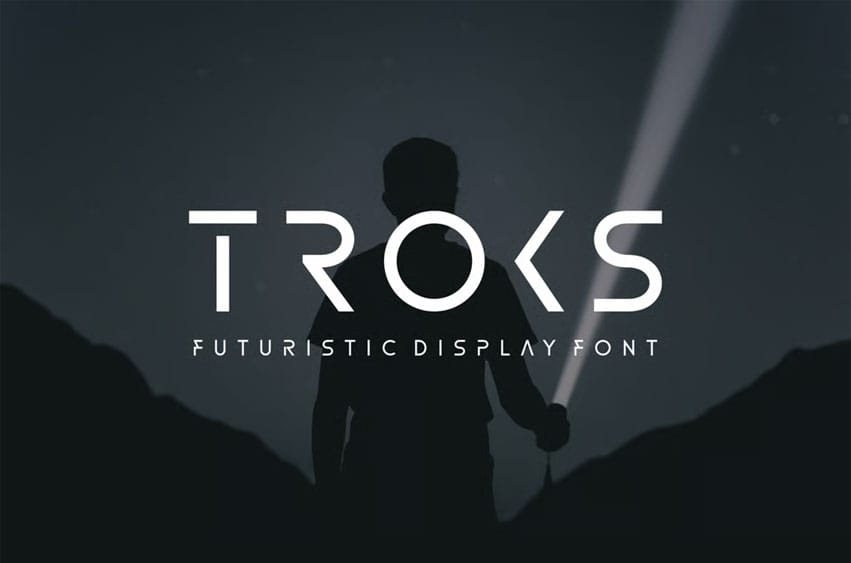
Troks Font Futuristic Display Font is a bold and authentic display font. The font is suitable for any branding project like logo, esport, and many more.